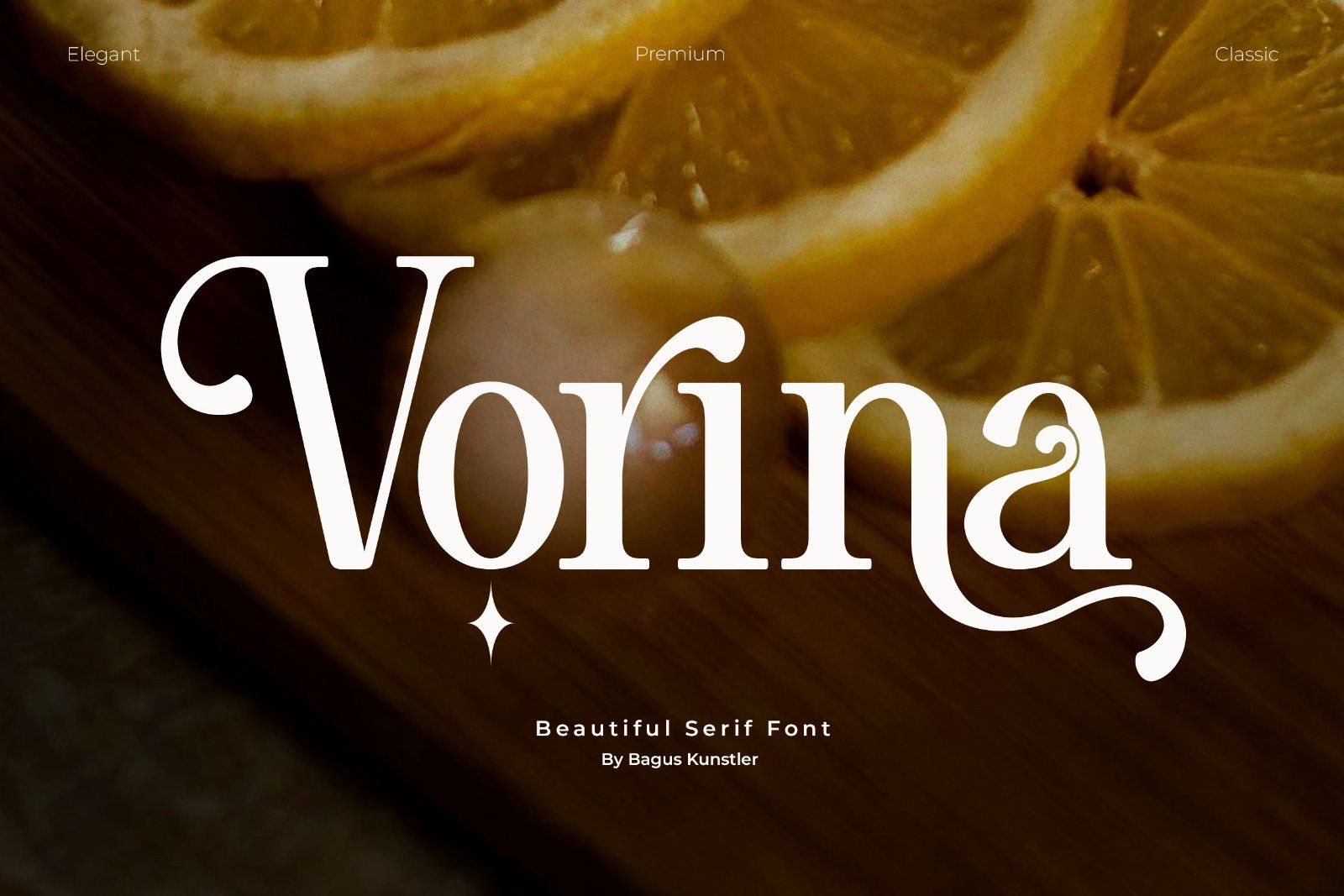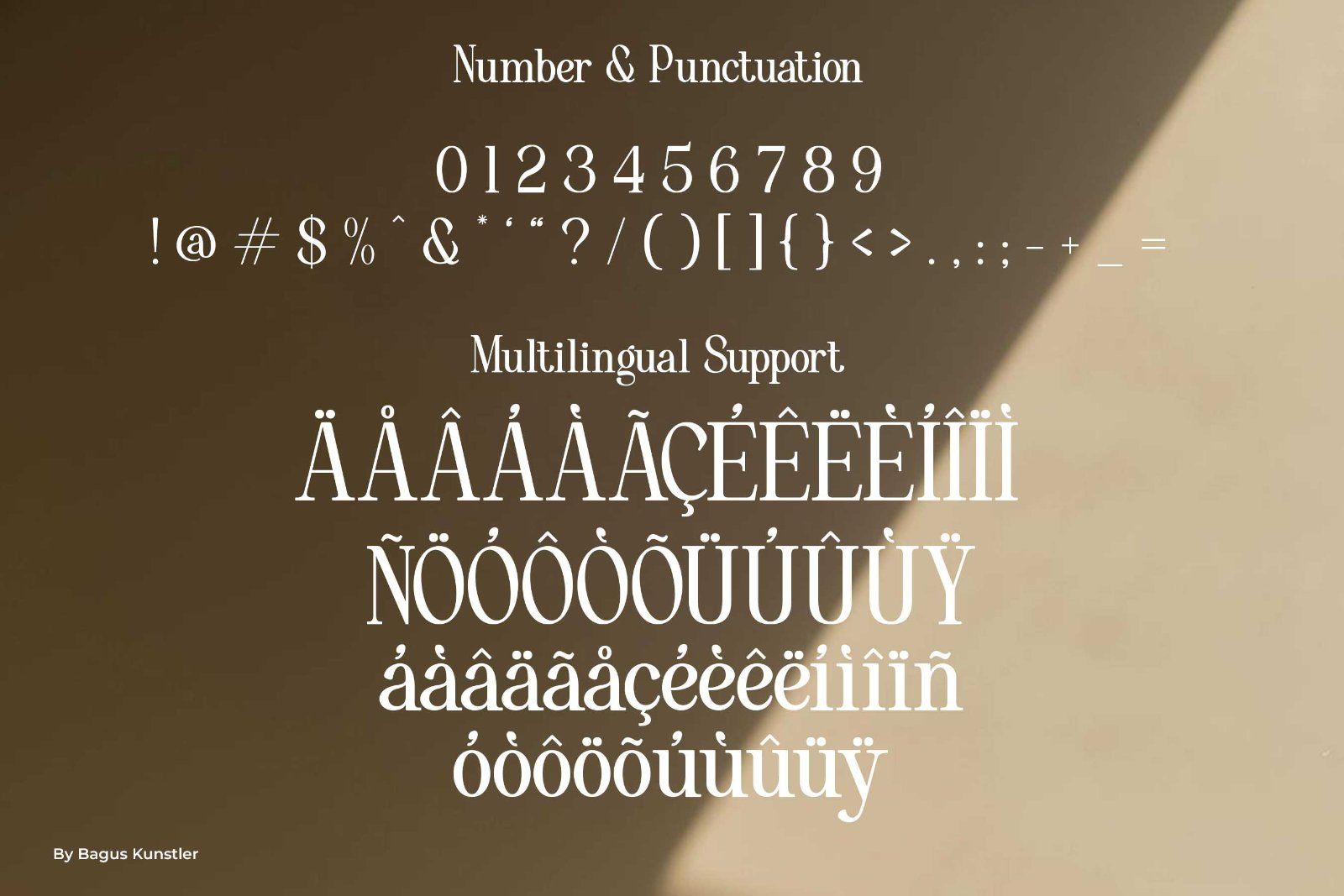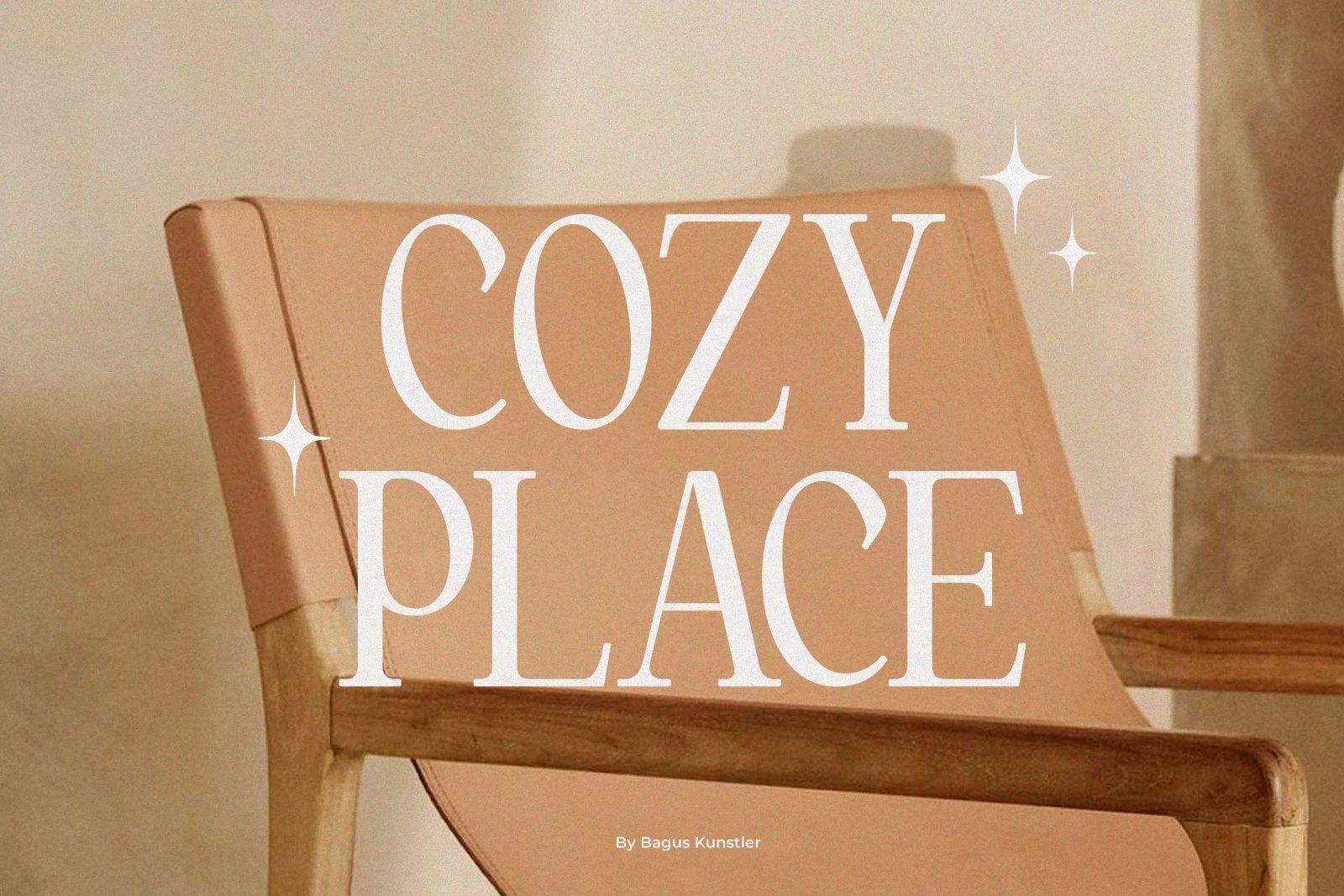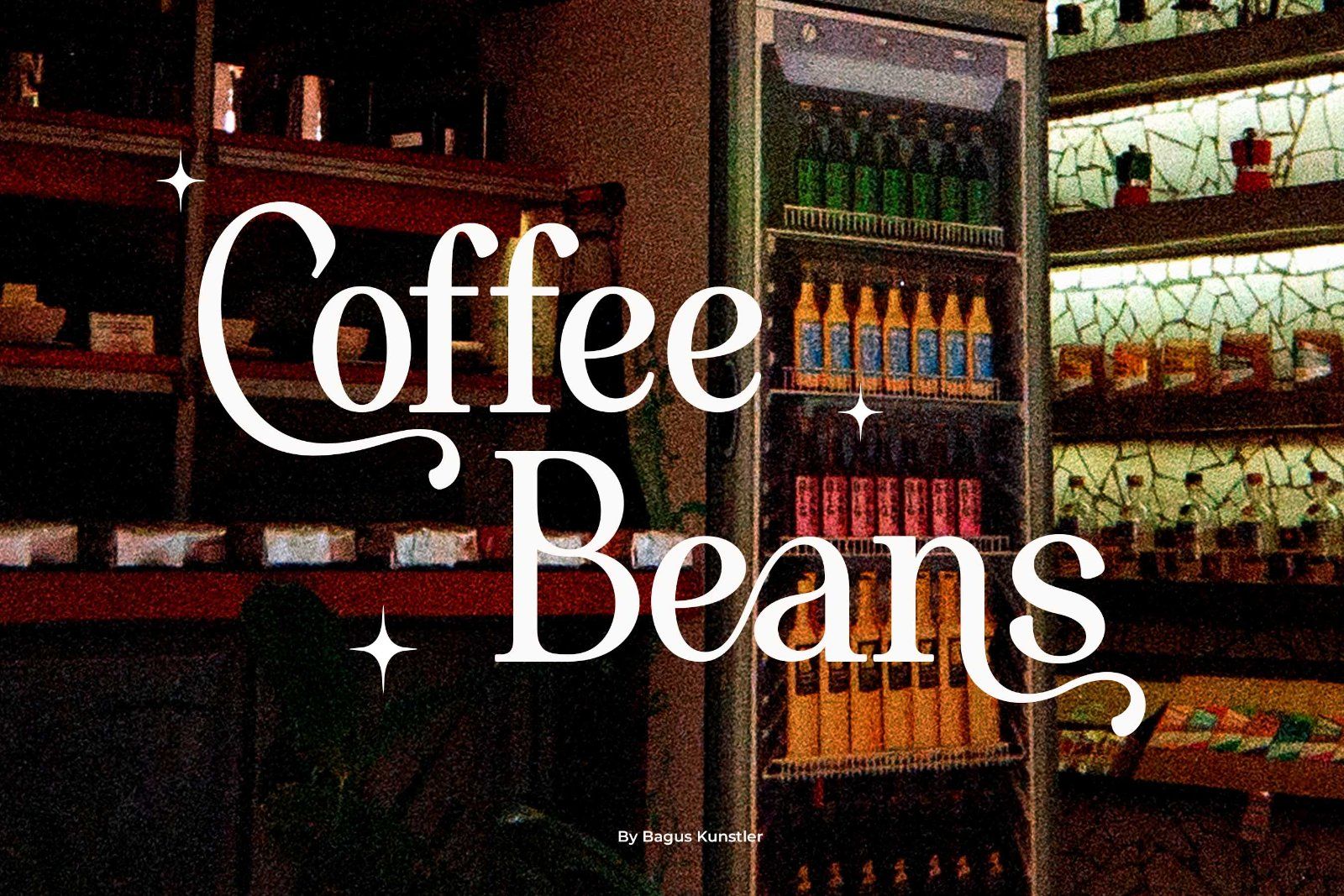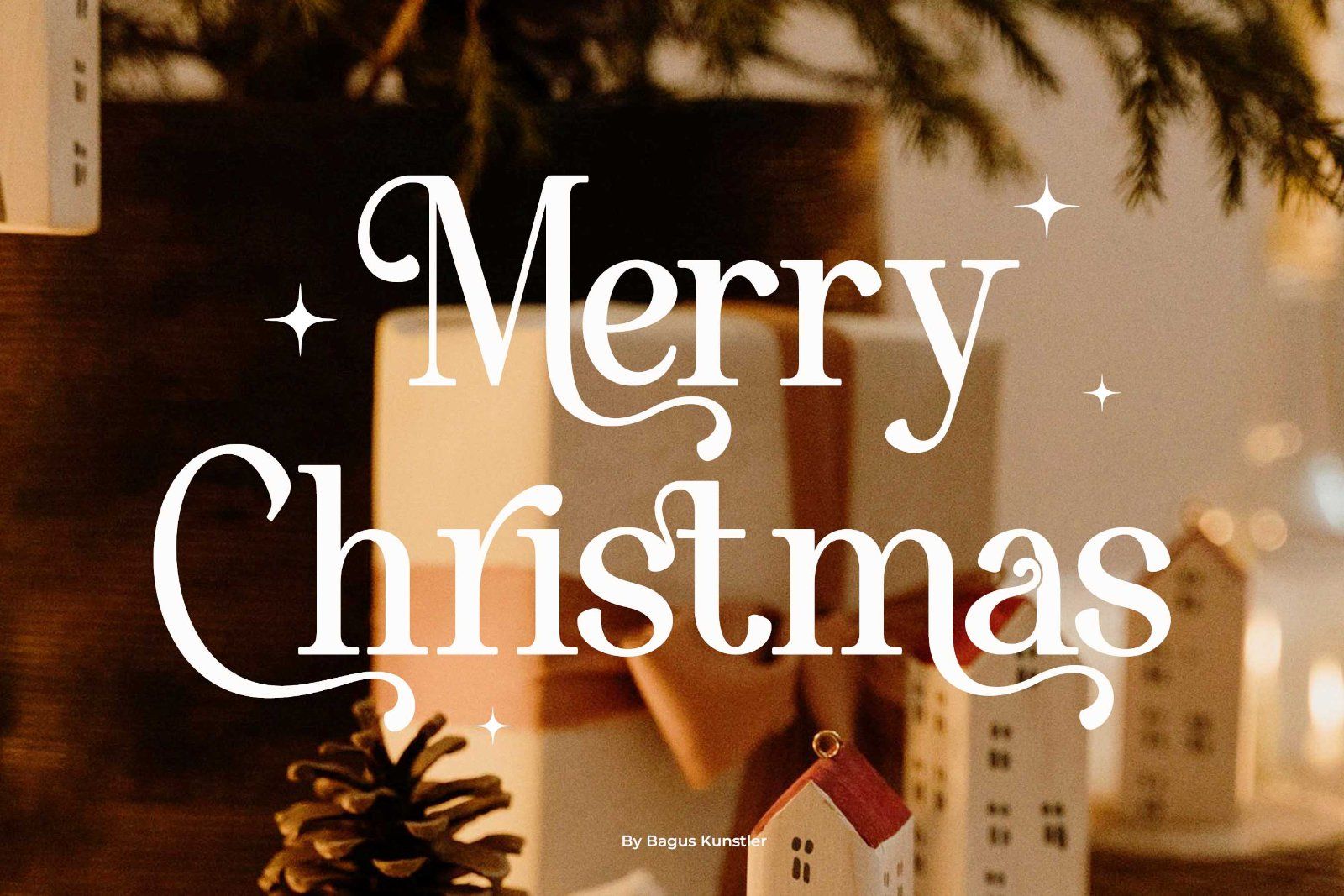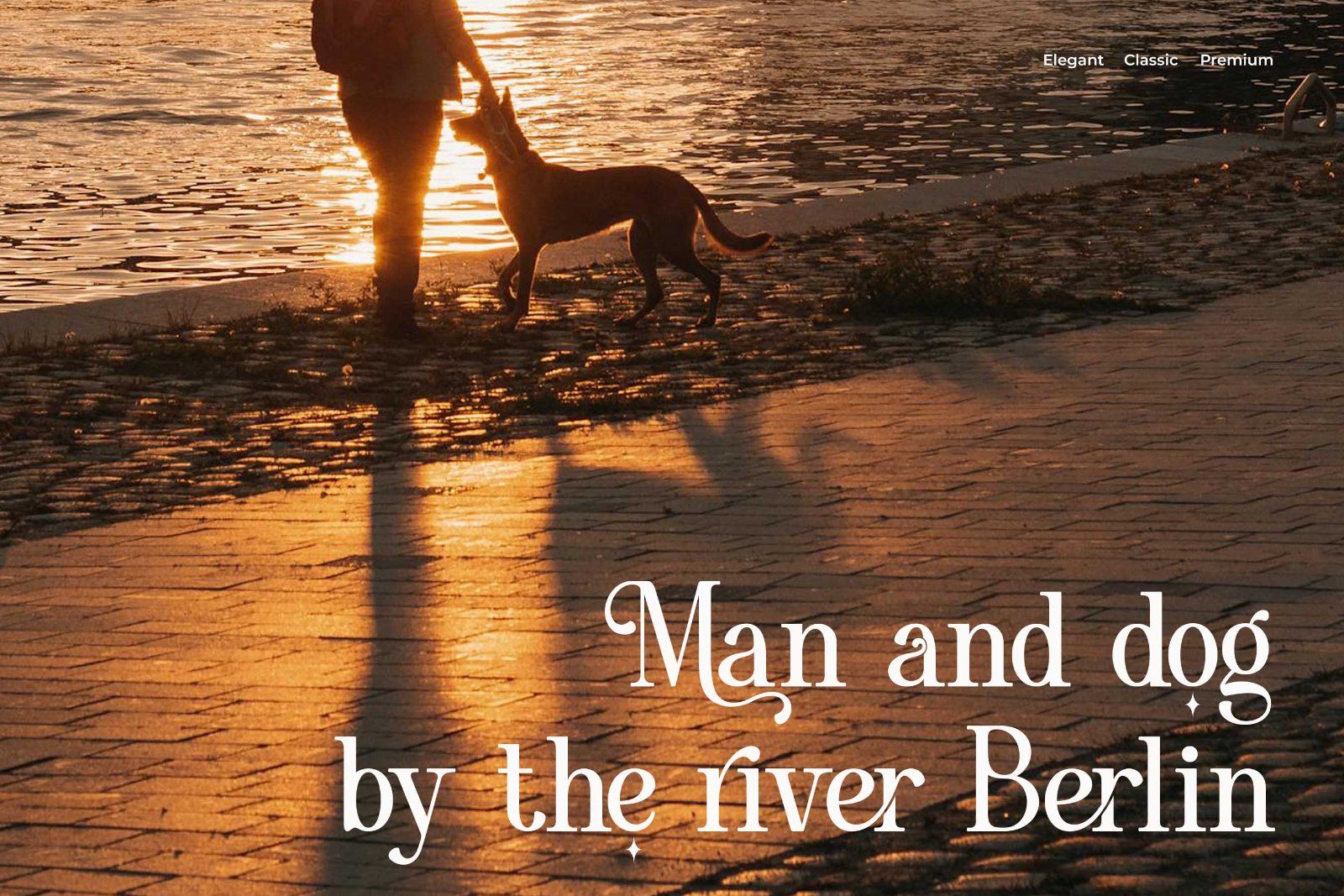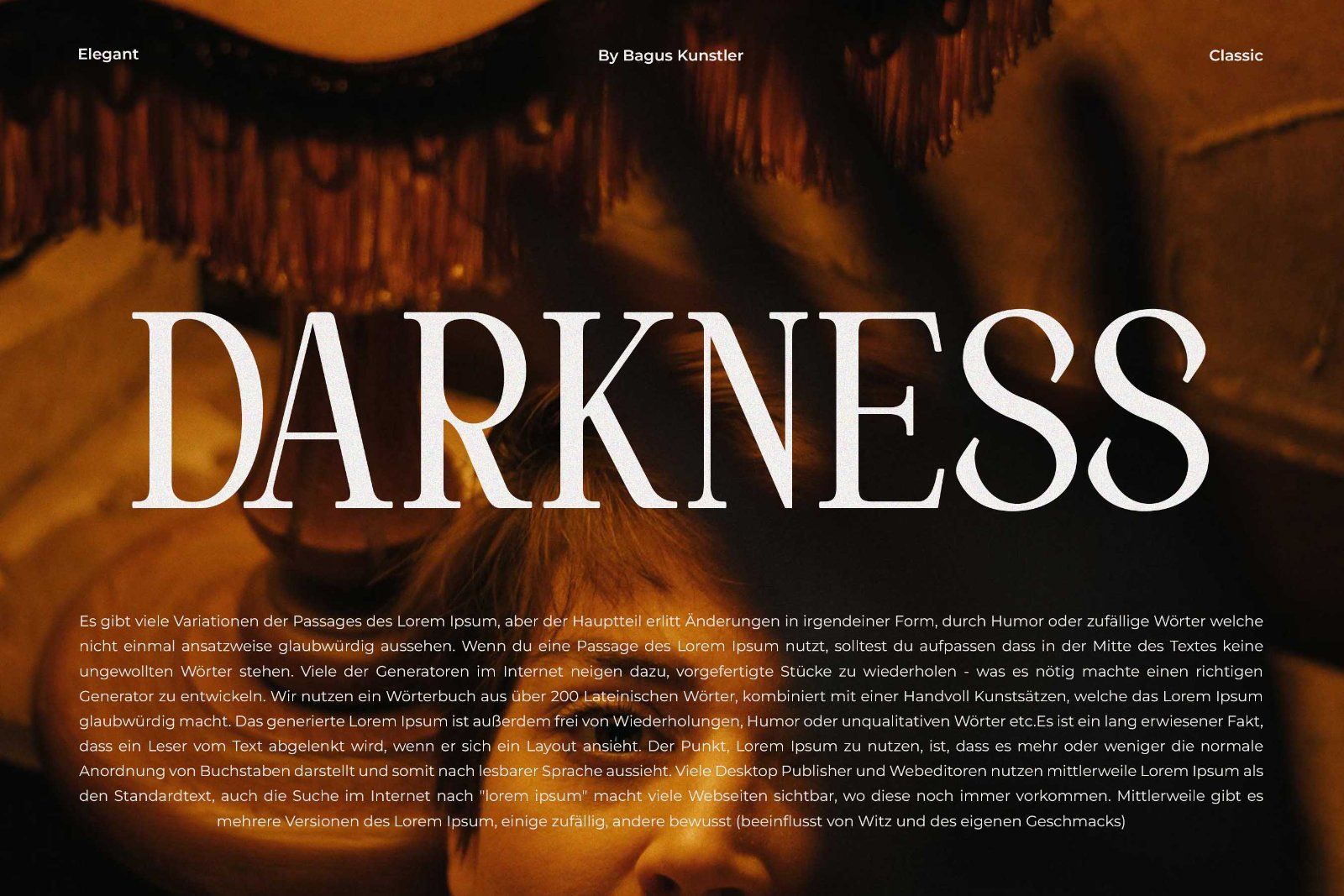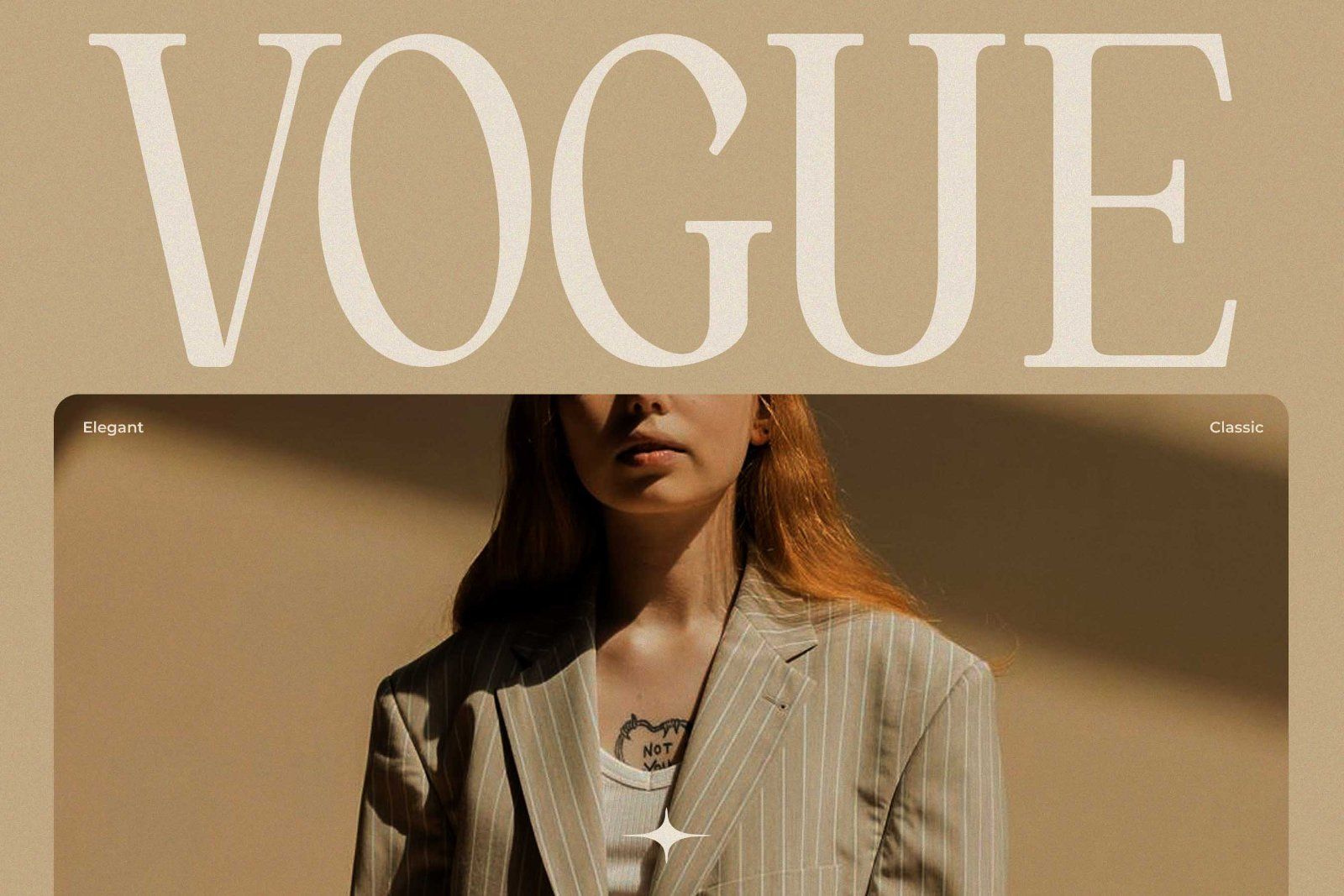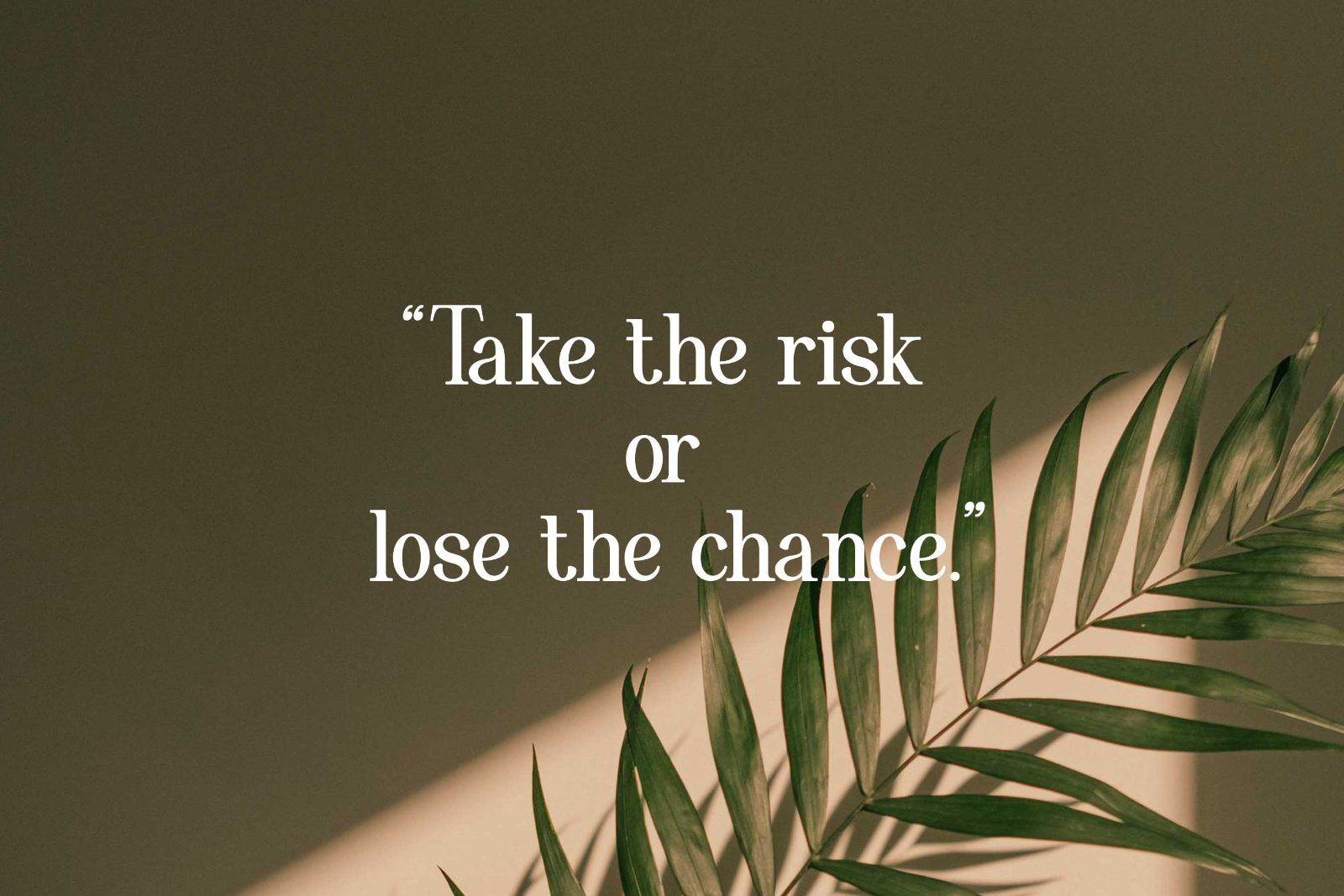
Vorina is a retro classic font that seamlessly intensifies your creative endeavors. Its unique, vintage touch unfolds elegantly in movie titles, poster designs, and websites. Attach a timeless appeal to your projects and let your creativity leap new boundaries with Vorina. It will not just accommodate your ideas but amplify the artistic vision you strive to convey.
Vorina available with :
-Uppercase
-Lowercase
-Number & Punctuation
-Multilingual Support
-Stylistic Alternates & Ligature